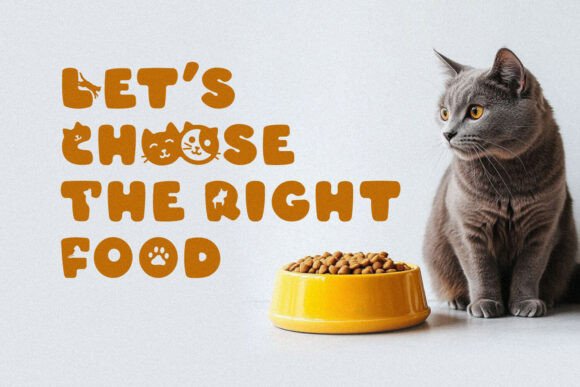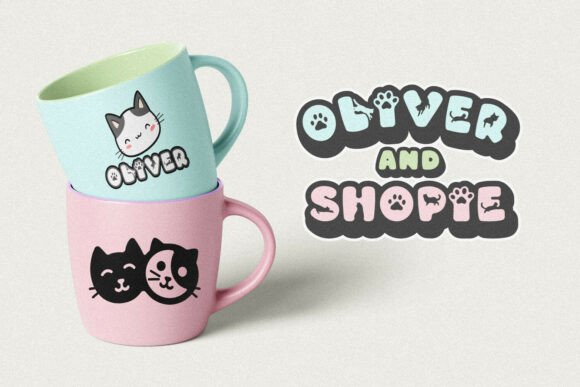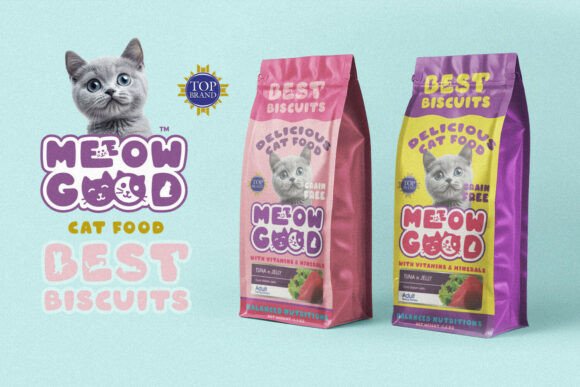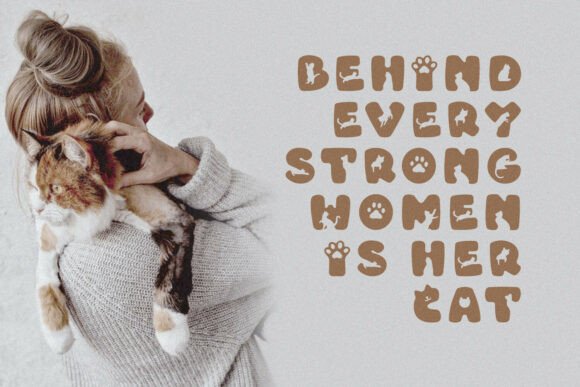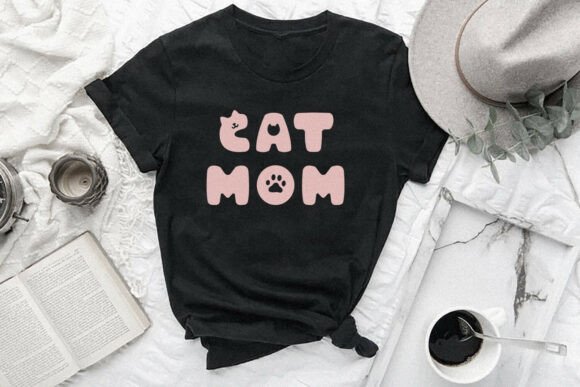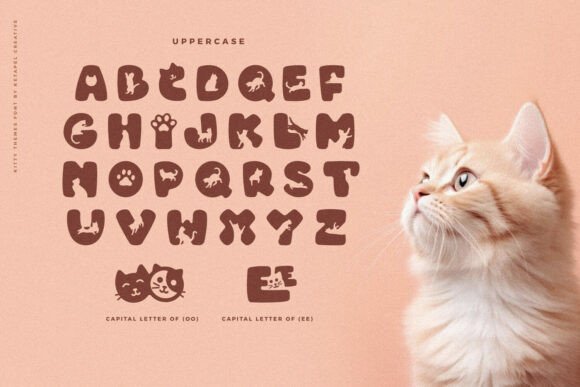
The Purrfect Font: A Deep Dive into Catie Font
I’ll never forget the time I was working on a cat-themed project for a client, and I just couldn’t find the right font to match the playful, whimsical vibe I was going for. The client wanted something that would appeal to cat lovers of all ages, and I was determined to deliver. That’s when I stumbled upon Catie Font, a cute and eye-catching decorative pet typeface that features adorable kitty ornaments. It was love at first sight! 🐱
An Honest Review of Catie Font
So, what makes Catie Font so special? Let’s dive into the good stuff and a few quirks I’ve discovered.
• ✨ Unique and playful design that’s sure to grab attention
• ✅ Extensive range of kitty ornaments and glyphs to add a personal touch
• 🌈 Perfect for creating cat-themed projects, from posters to t-shirts
• 🤔 Some users may find the font a bit too playful or childish for certain projects
• ⚠️ Limited use outside of cat-themed projects, as the font’s style may not fit other design aesthetics
The Designer Inspiration Behind Catie Font
According to the designer, Catie Font was inspired by a passion for cats and a love for creative typography. The designer wanted to create a font that would capture the playful, whimsical spirit of felines, while also providing a versatile tool for designers and crafters. The result is a font that’s both fun and functional, perfect for a wide range of design projects.
Q: What type of projects is Catie Font best suited for?
A: Catie Font is perfect for creating cat-themed projects, such as posters, logos, packaging, t-shirts, and more. It’s also great for crafters and hobbyists who want to add a personal touch to their designs.